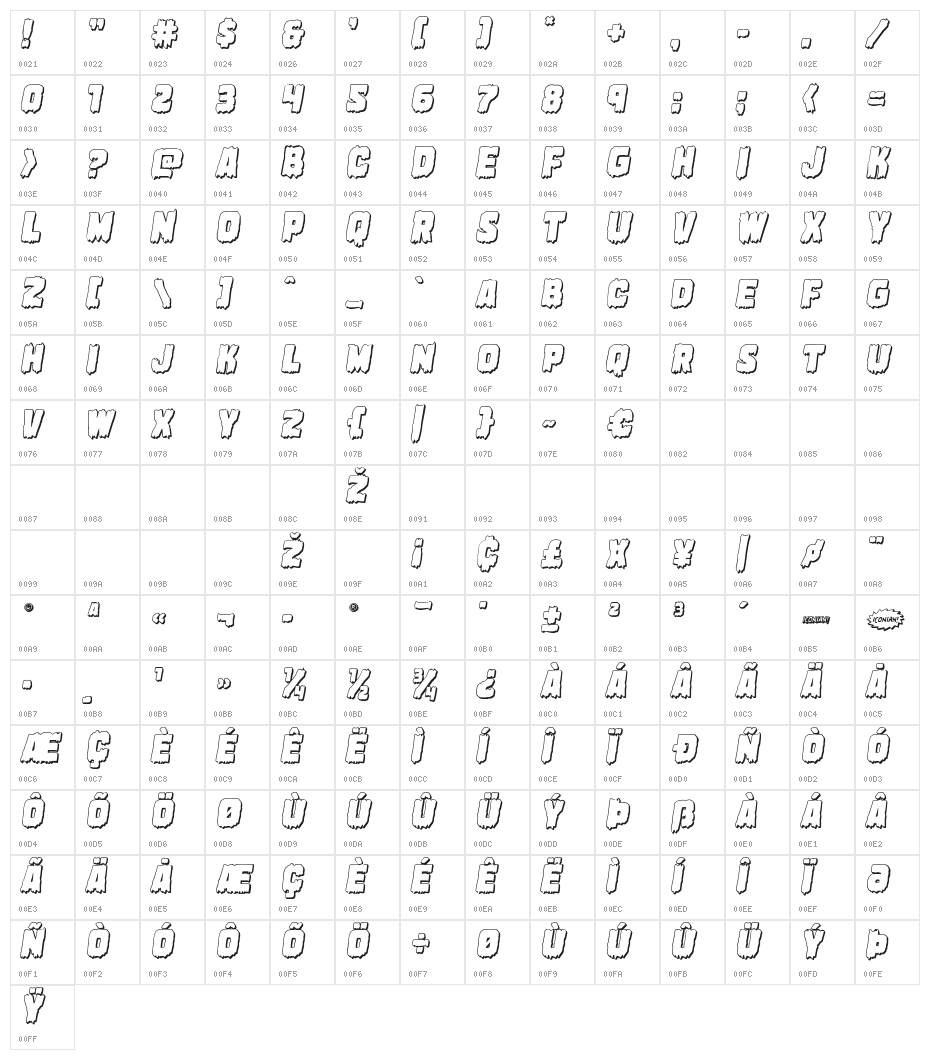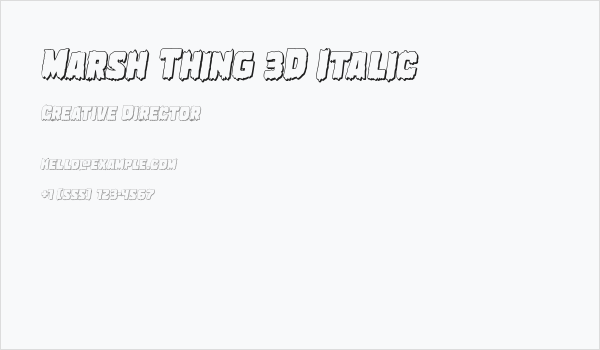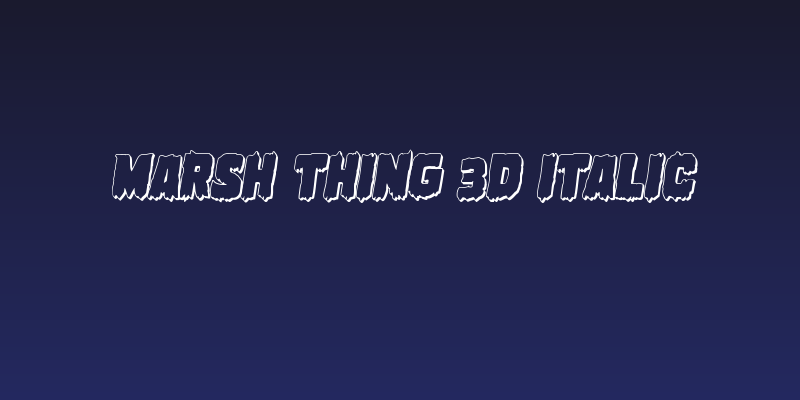
Marsh Thing 3D Italic Font
Marsh Thing 3D Italic Description
This font features a bold and playful design with a three-dimensional effect that gives each character a sense of depth and movement. The letters have a chunky, irregular outline that resembles a dripping or melting effect, adding a whimsical and slightly eerie touch. The italic slant enhances the dynamic appearance, making it suitable for eye-catching designs. The uppercase and lowercase letters maintain consistency in style, while the numbers and special characters complement the overall theme. This font is perfect for projects that require a fun and unconventional look.
| Proposed Projects | Great for Halloween-themed posters, comic book titles, children's book covers, and creative branding. |